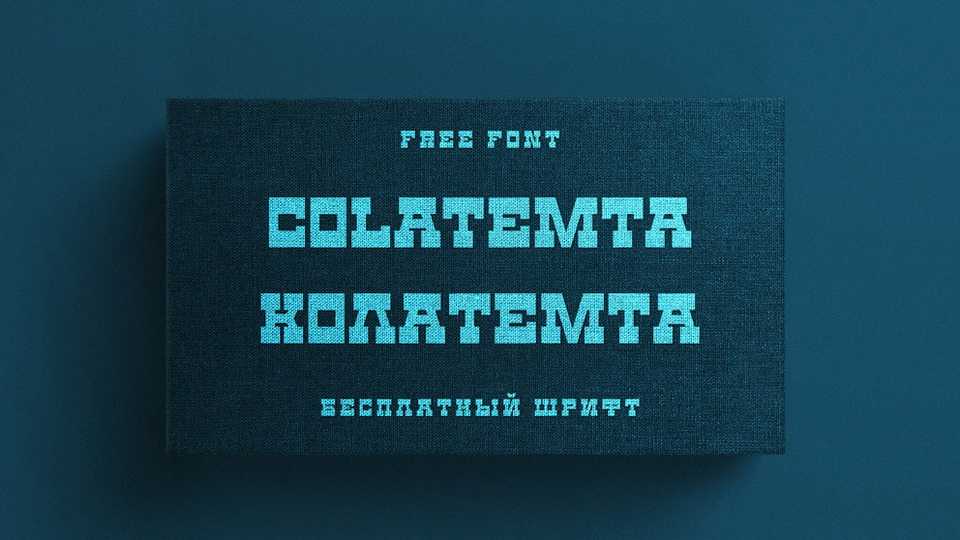
Download Colatemta font, an old fashioned slab serif typeface that smells of the Wild West and Clint Eastwood. Colatemta is ideal for titling, poster work, logos, and small bits of copy.
Designer: Denis Ignatov